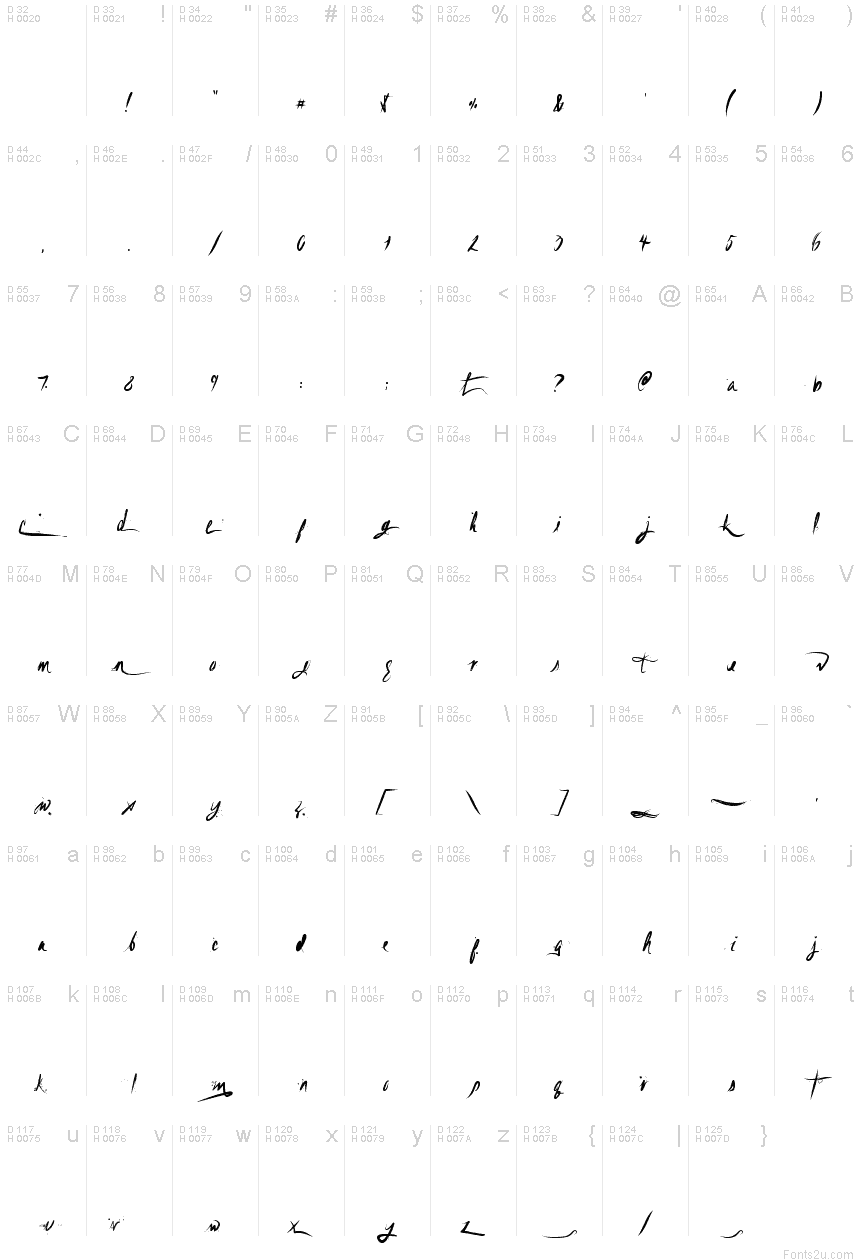
Unfolding Tragedy Textured, created by Dirt2, is a free textured handwritten font shaped by broad, fast-moving strokes, long joins, and dramatic changes in width. Ink spatters and scratched gaps roughen the sweeping letters.
Designers working in alternative music, streetwear, and youth culture will find its unruly motion especially apt for album packaging, T-shirt graphics, event posters, and independent magazine covers. On fashion labels and editorial features, the large loops and streaked ink behave like expressive drawn marks rather than neutral type within the surrounding artwork, and their raw, personal gesture provides a clear link to the music and streetwear settings.